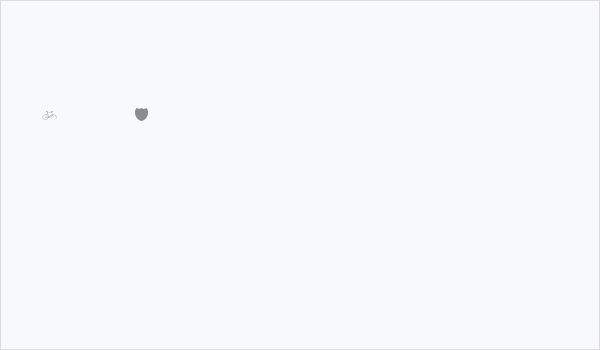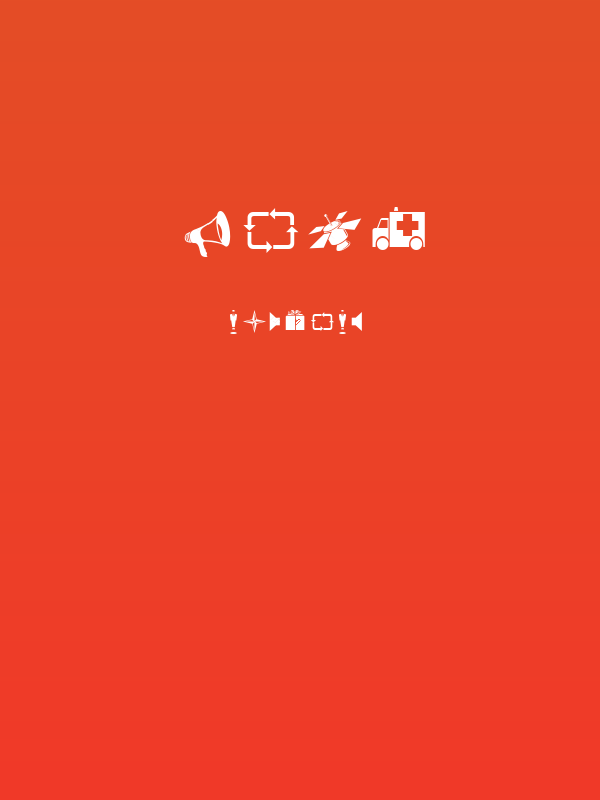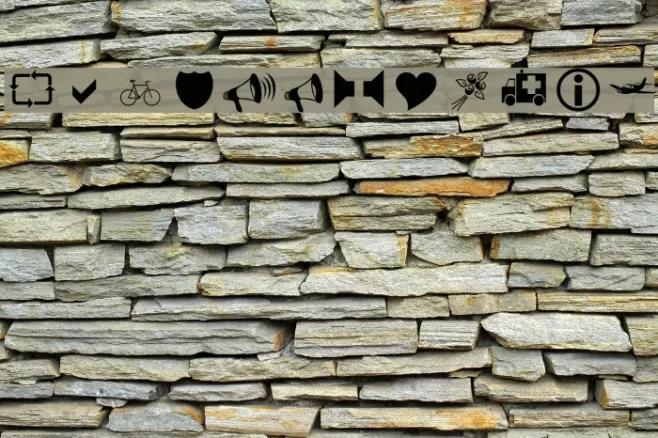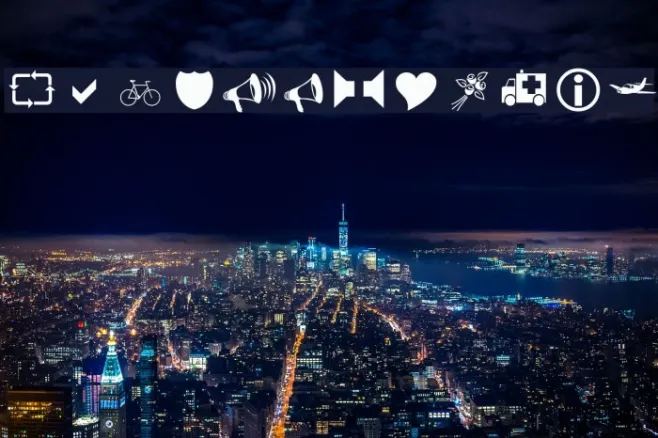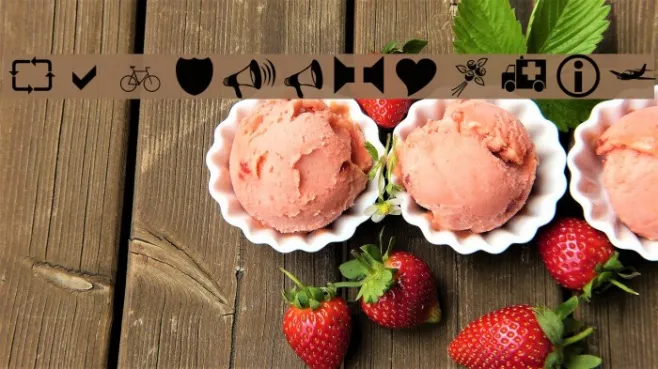
fank Font
fank Description
A collection of bold, high-contrast pictograms and icons, featuring solid black fills and simple, geometric shapes representing objects like vehicles, gifts, shields, and symbols. The icons are uniform in style, with consistent line thickness and minimal detail, making them easily recognizable and suitable for signage or infographics.
| Overall Style | Modern, Minimalist, Functional |
| Use Case | Icons, Signage, Infographics, UI elements |
| Proposed Projects | Wayfinding signage, infographics, app UI icons, educational materials, emergency signage. |